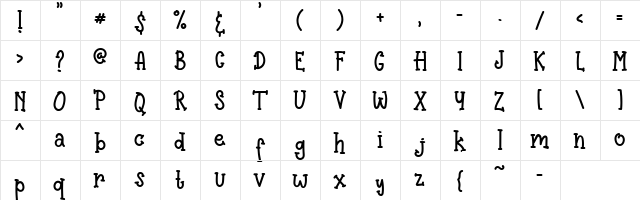
Pinnocio Regular
Design Context for Pinnocio Typeface
Pinnocio is a composed and adaptable typeface that performs quietly and consistently across a wide range of design contexts.